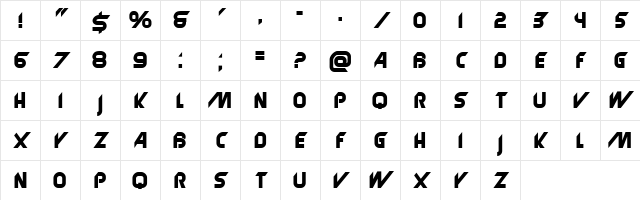
Translator Regular
Design Context for Translator
Translator is a composed and adaptable typeface that performs quietly and consistently across a wide range of design contexts.